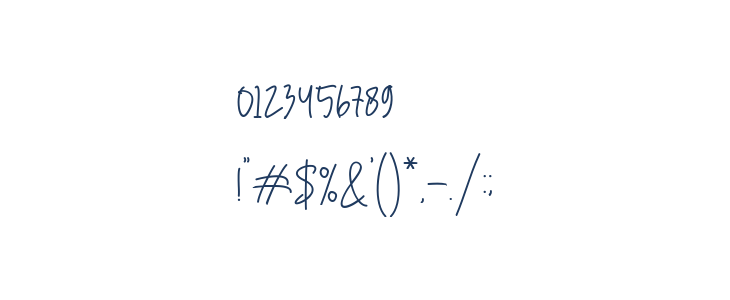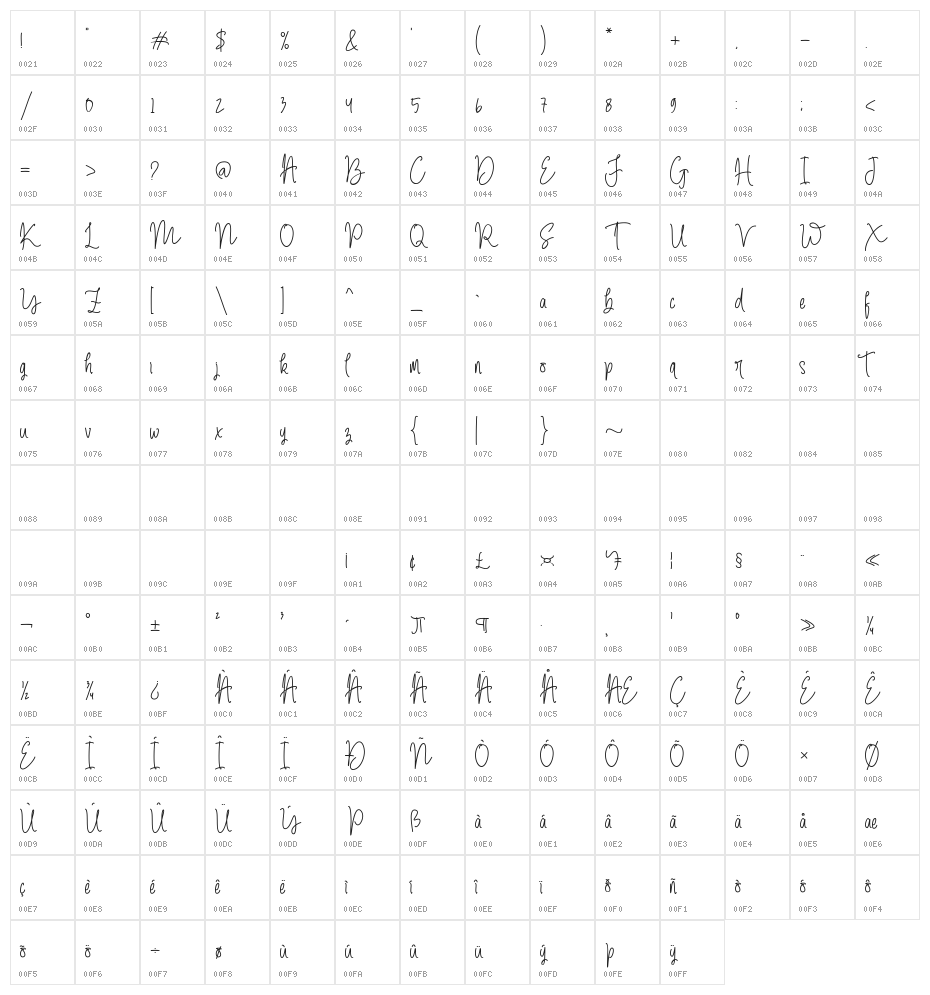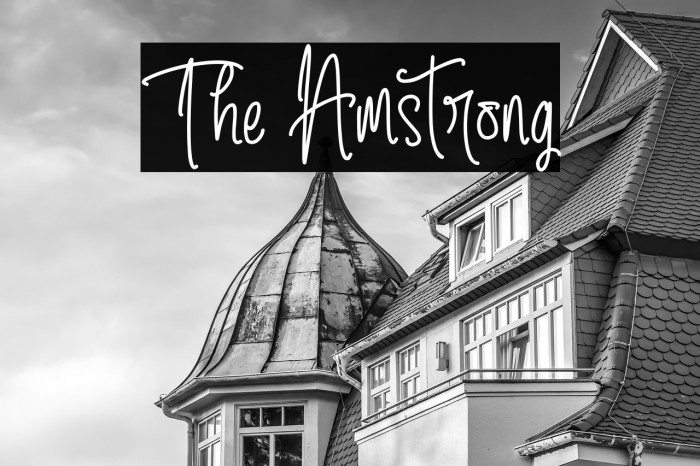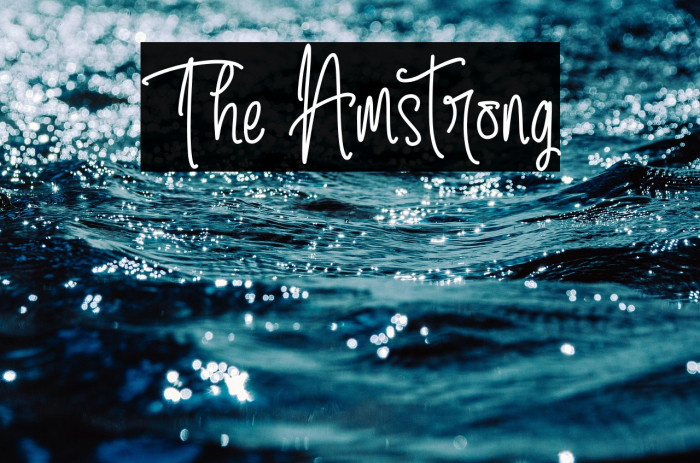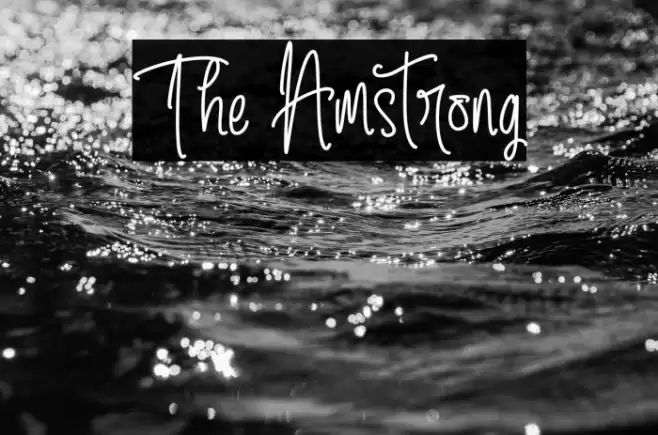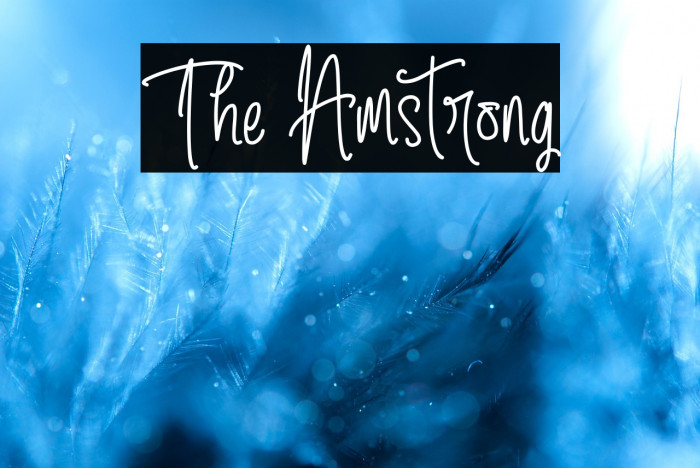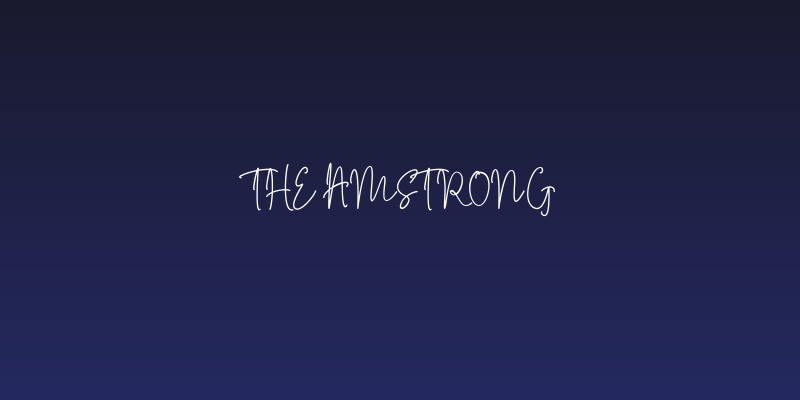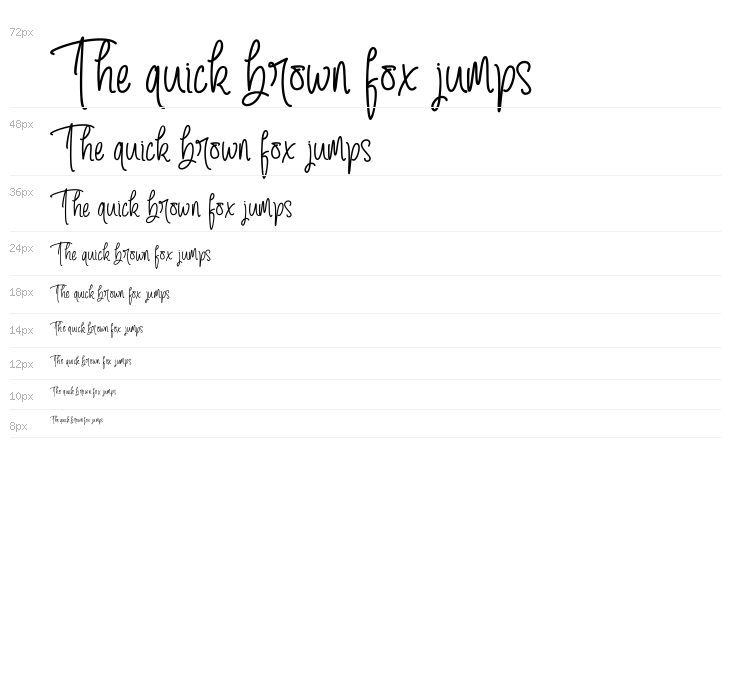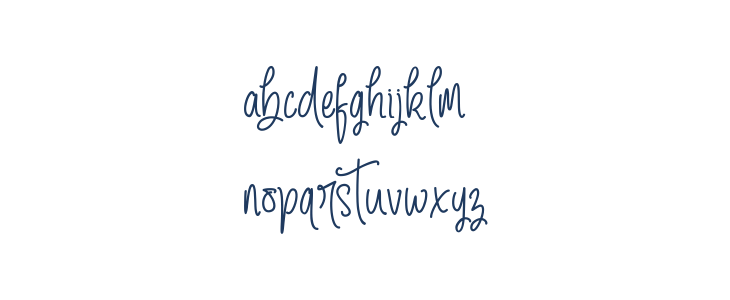
The Amstrong Font
The Amstrong Description
This font features a playful and elegant script style, characterized by its fluid and connected letterforms. The uppercase letters are tall and slightly narrow, with a whimsical flair that adds a touch of sophistication. The lowercase letters maintain a consistent flow, enhancing readability while preserving the font's artistic appeal. Numbers and special characters are designed to match the overall style, ensuring a cohesive look across different text elements. The font's unique charm makes it suitable for creative projects that require a personal touch.
Use CaseLogos, Invitations, Decorative text
Proposed ProjectsIdeal for wedding invitations, greeting cards, branding, and social media graphics.